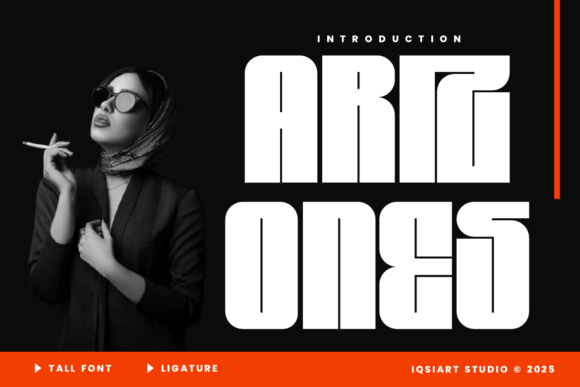
Unlock Your Creative Potential with Arizones Font
Have you ever stared at a blank canvas, waiting for inspiration to strike? You’re not alone. As creatives, we’ve all been there, searching for that spark that sets our projects ablaze. For some, it’s a burst of color, while for others, it’s a font that brings everything together. Enter the Arizones Font, a game-changing sans serif font designed to elevate your creative ideas to new heights.
Arizones Font is more than just a typeface – it’s a tool for designers, artists, and writers to express themselves with precision and style. With its unique blend of modernity and sophistication, this font is sure to become a favorite among creatives. Whether you’re working on a branding project, crafting a novel, or designing a website, Arizones Font is the perfect companion to help you bring your vision to life.
Arizona Font Key Features
- Unique Characteristics: The font features a unique blend of modern and southwestern influences, with a strong emphasis on legibility and readability.
- Font Metrics: The font’s x-height, cap height, and baseline are carefully crafted to ensure consistent spacing and readability across various font sizes.
Arizones Font Review
Arizones Font is a beautiful, modern sans-serif typeface that caught my attention. Here’s my honest take on its strengths and weaknesses.
- Unique aesthetic**: Arizones Font has a distinct, elegant look that sets it apart from more common sans-serif fonts.
- High readability**: This font is well-suited for both digital and print use, making it a great choice for web design, magazines, or books.
- Extensive language support**: Arizones Font covers a wide range of languages, including many non-Latin scripts, making it a versatile option for global projects.
- Weight limitations**: Arizones Font only comes in a limited range of weights (400, 600, 700), which might not be sufficient for projects requiring more nuanced typography.
- Not ideal for body text**: While Arizones Font is beautiful, it might not be the most comfortable choice for large blocks of text due to its somewhat formal feel.
Overall, I’m impressed by Arizones Font’s unique design and broad language support. However, its limitations in terms of weight and suitability for body text mean it’s best suited for headings, titles, and other display typography.
Tips for Getting the Most Out of the Arizona Font
Use the Arizona font to create a warm and rustic feel in your designs.
Pair the font with earthy colors and natural textures for a cohesive look.
Use the font in titles and headings to add a touch of sophistication.